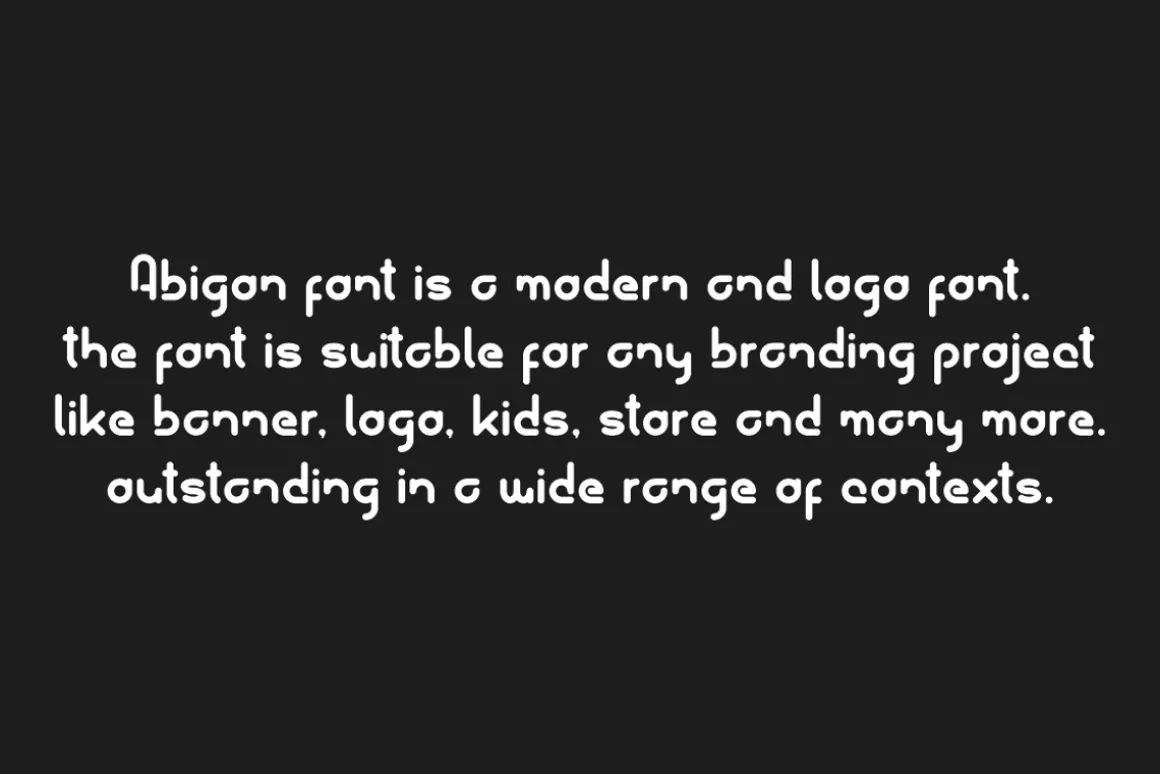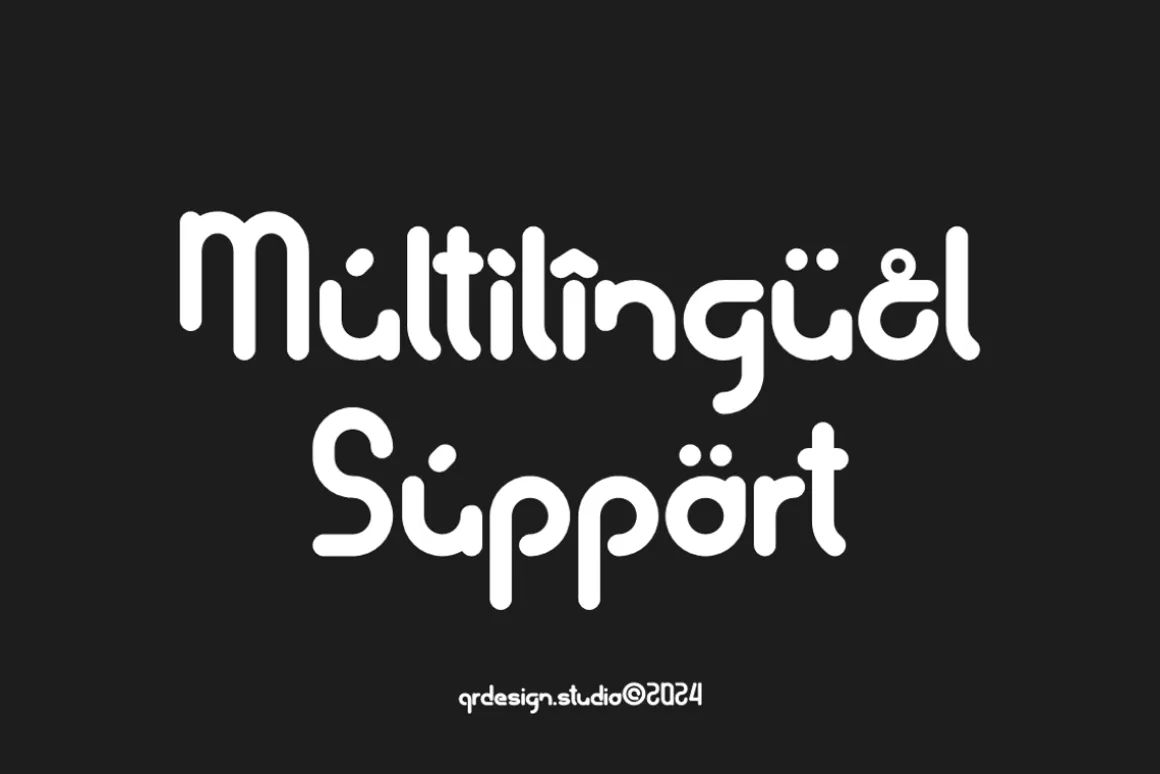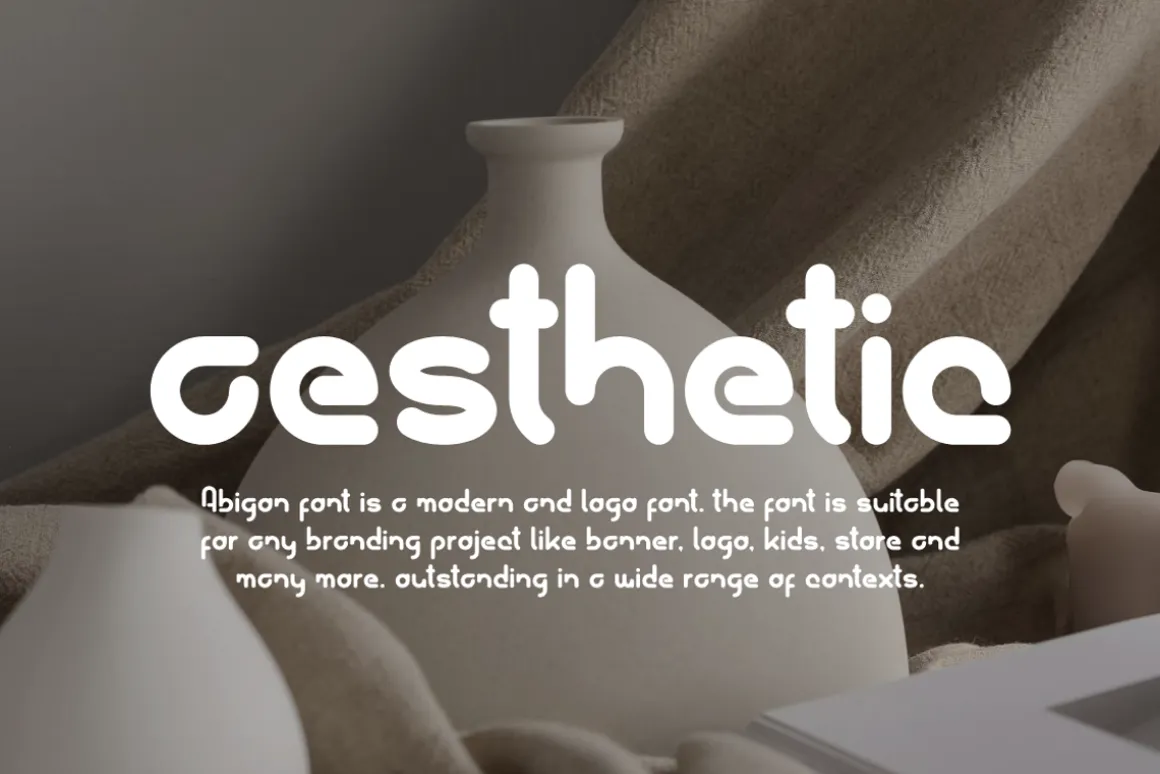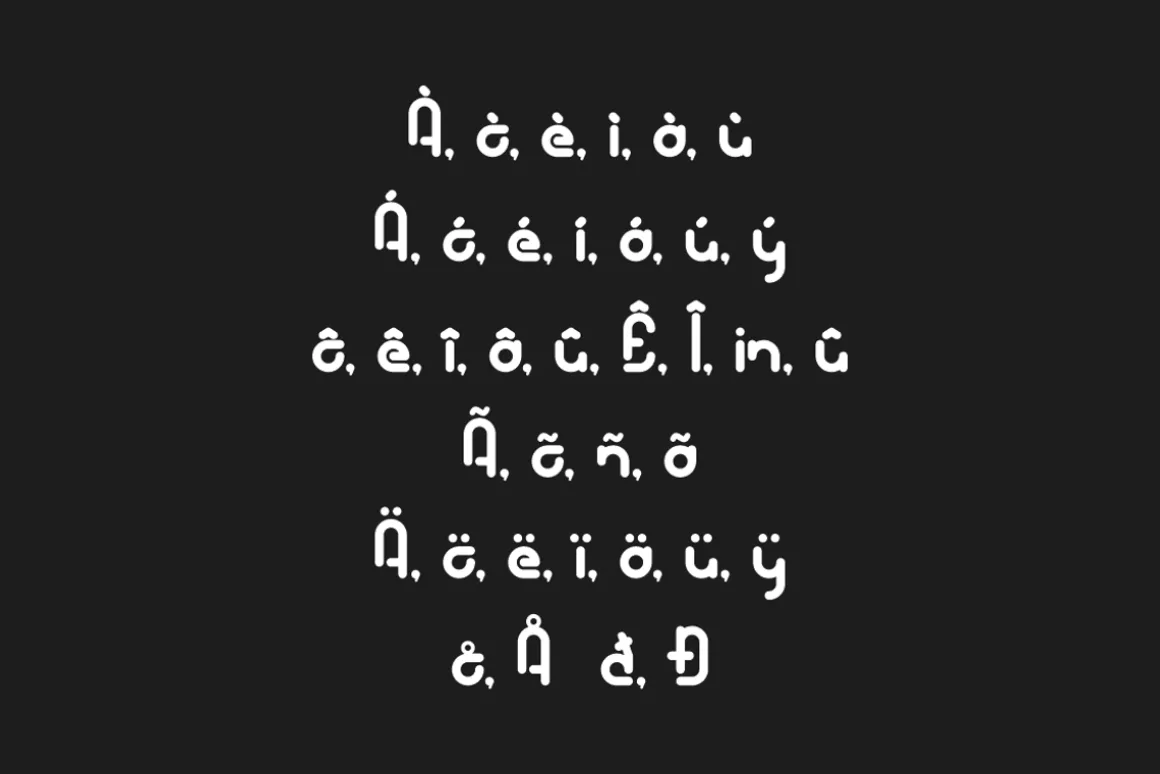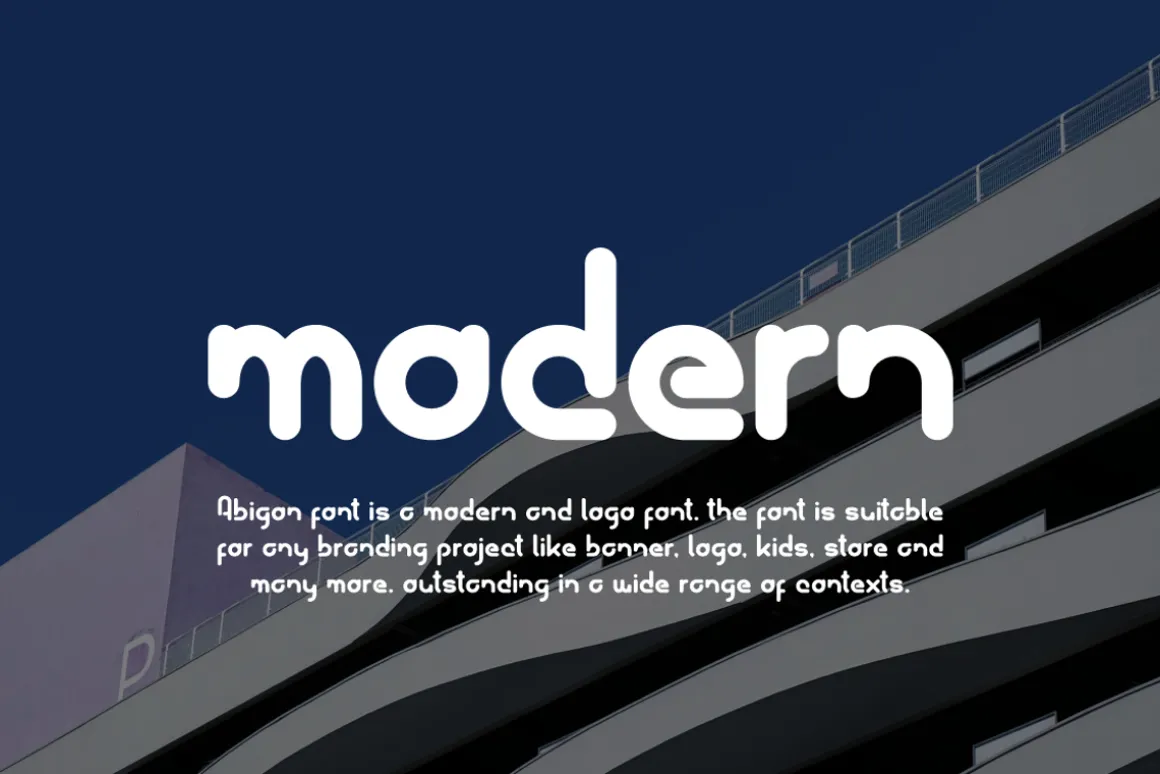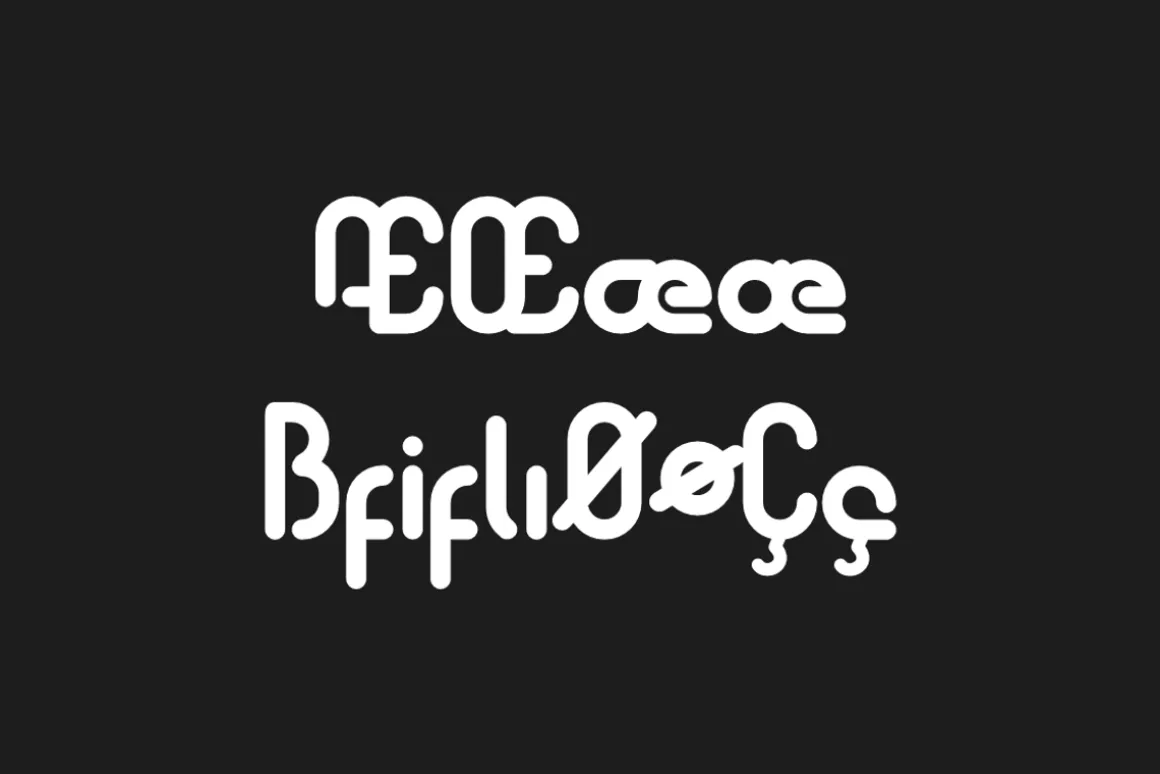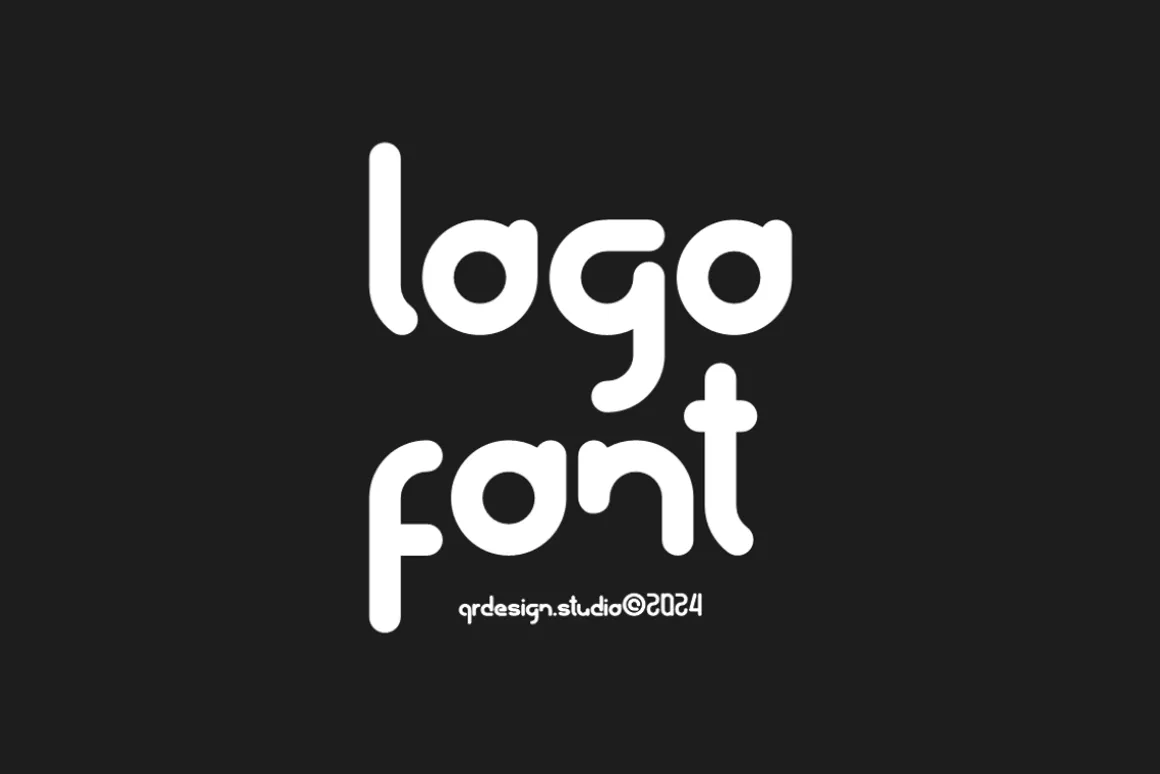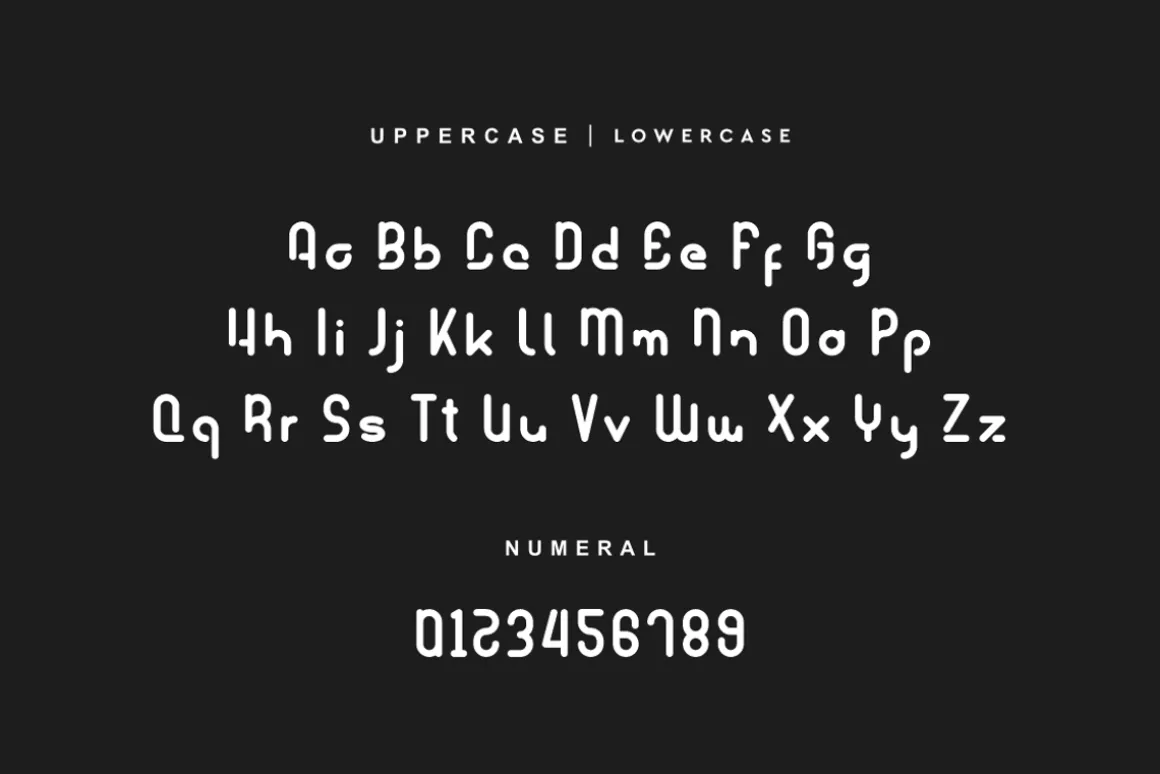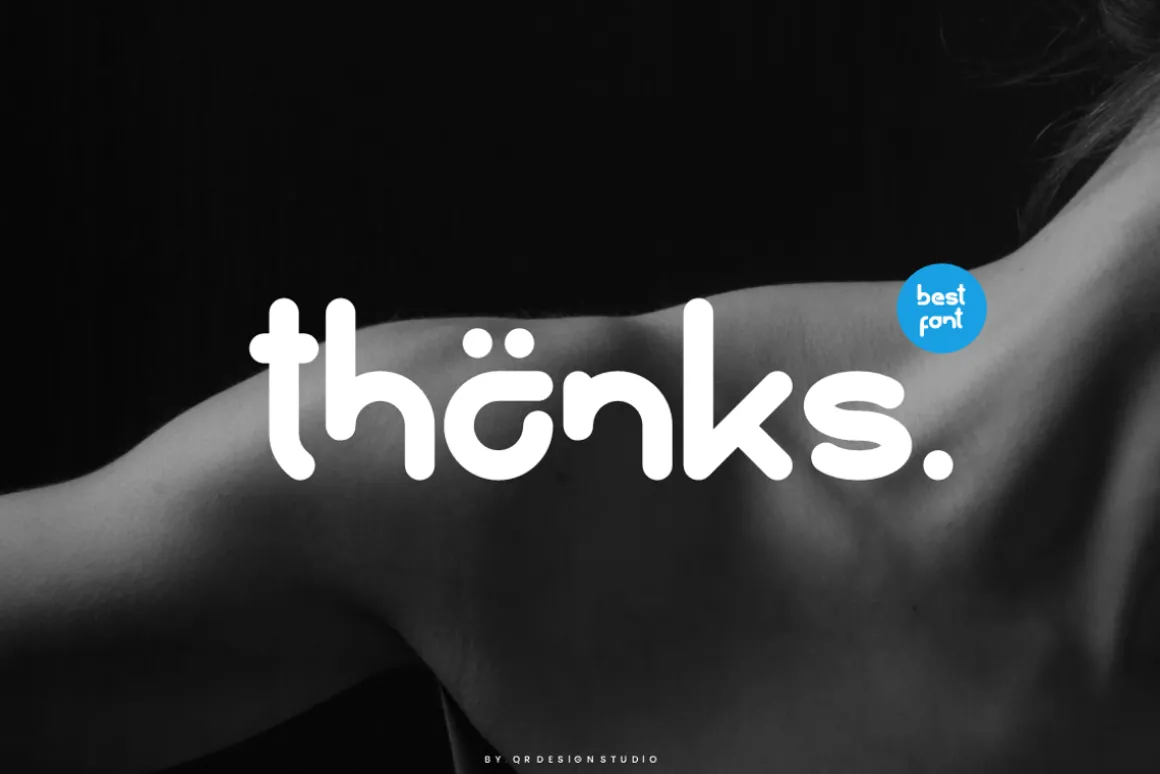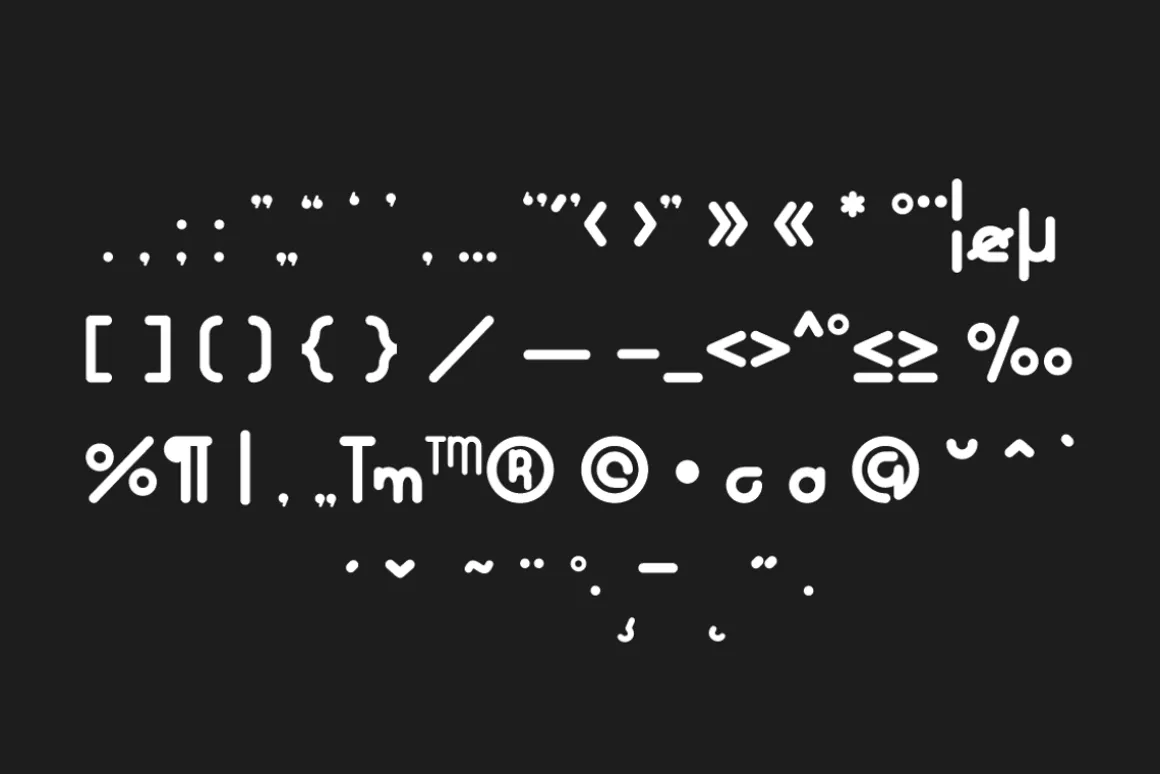
Abigon Font is a sans serif and authentic display font.The font is suitable for any branding project like poster, logo, sport, and many more.Outstanding in a wide range of contexts.
Main Features
- Uppercase & Lowercase
- Ligatures & Alternate
- Numeral & Punctuations
- Multilingual Support